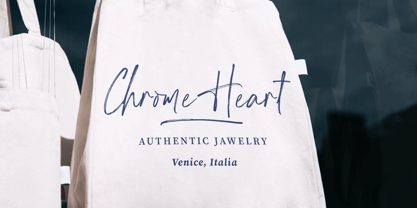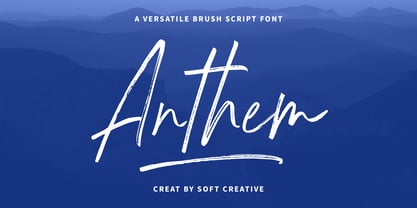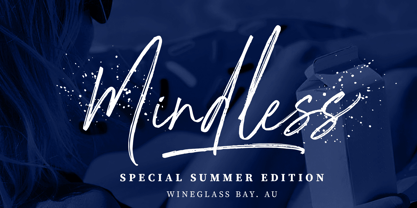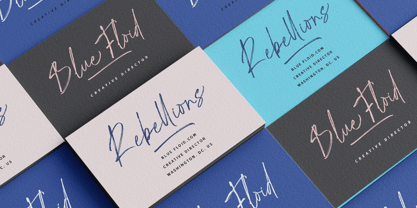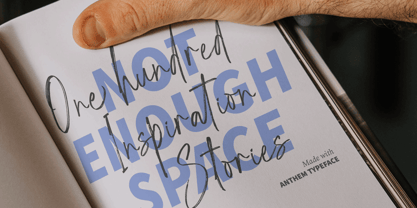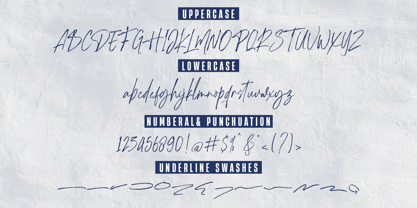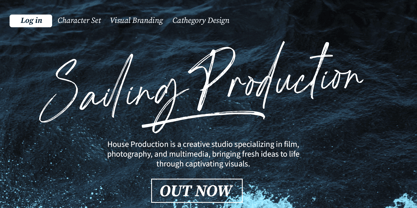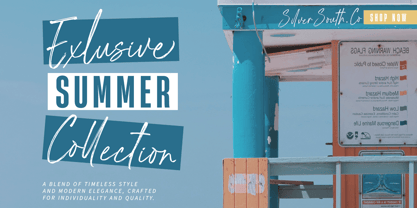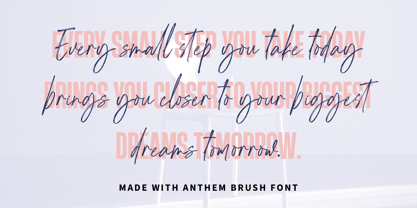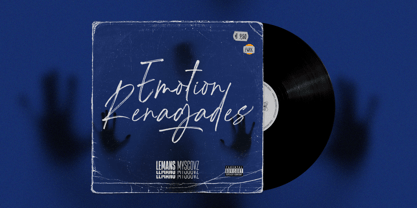
Anthem Brush
by Soft Creative
The Anthem Brush Font Family was designed by Muhajir Akarim and published by Soft Creative. Anthem Brush contains 2 styles and family package options.
Anthem Brush is a new handwritten font whose every stroke is carefully crafted to maintain consistency while showcasing the unique characteristics of stunning hand-drawn art. The Anthem brush is also made with an irregular style and irregular letter thickness. So this typeface is ideal for branding, social media, invitations, and any design project that wants a personal, crafted feel. Anthem Brush also has several strokes that will beautify your design.